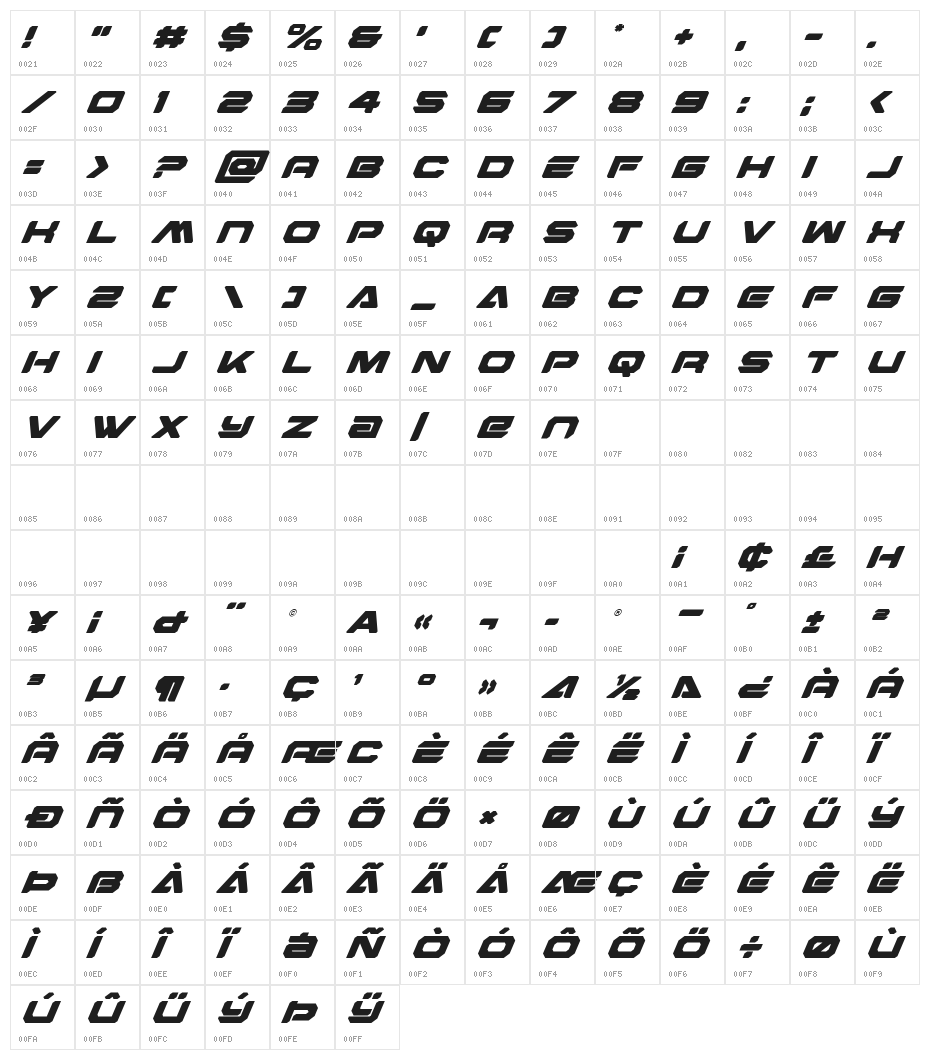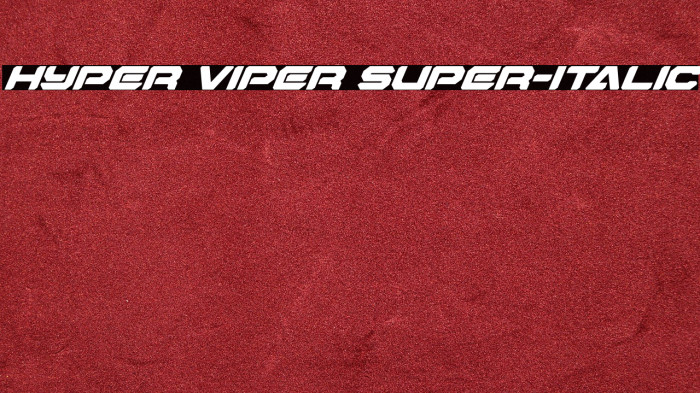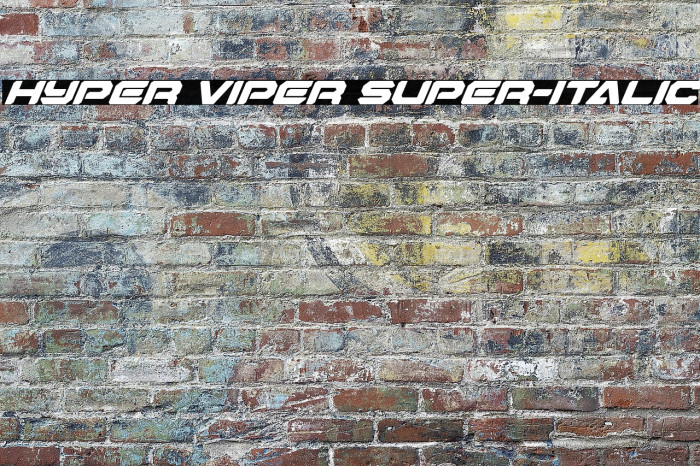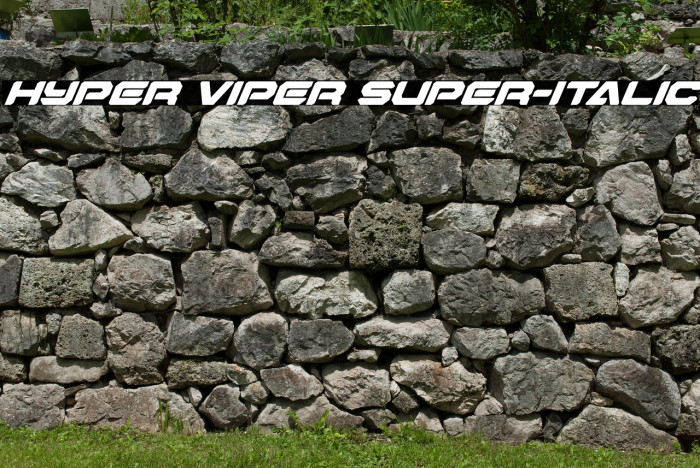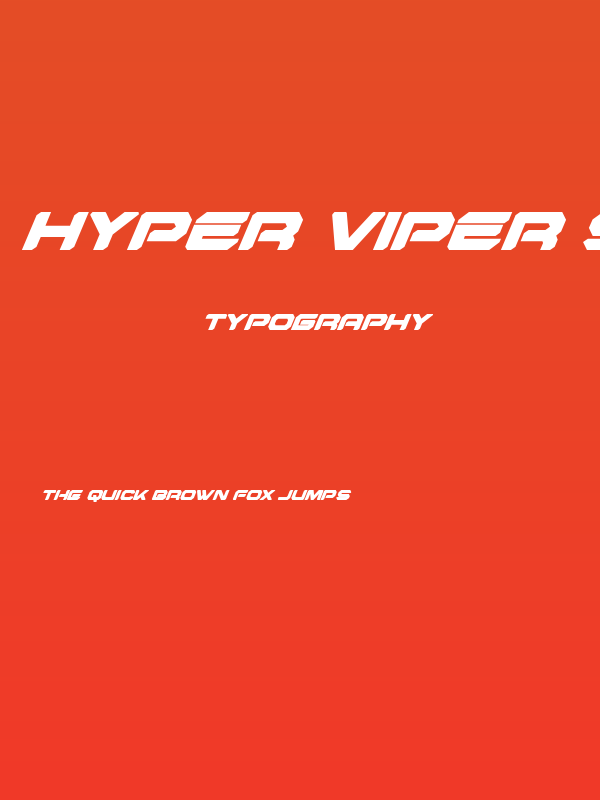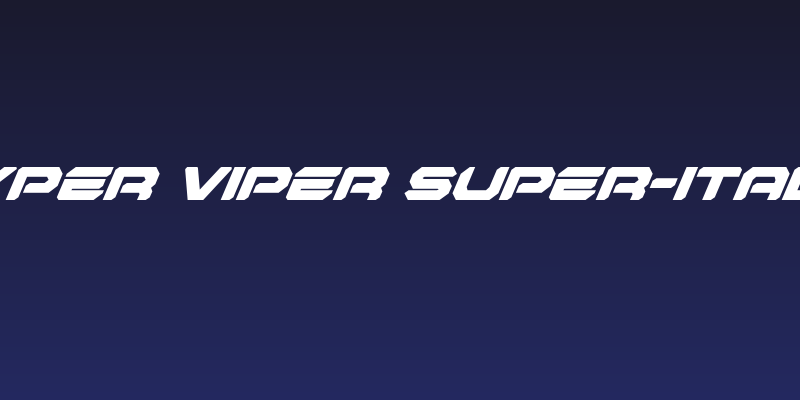
This font features a dynamic and futuristic design with a strong italic slant, giving it a sense of speed and motion. The characters are bold and angular, with sharp edges and a geometric structure that enhances its modern appeal. The uppercase and lowercase letters maintain a consistent style, while the numerals and special characters complement the overall aesthetic. The font's boldness and unique style make it stand out, suitable for projects that require a striking and contemporary look.
| Proposed Projects | Ideal for sports branding, automotive designs, video game titles, and tech-related projects. |